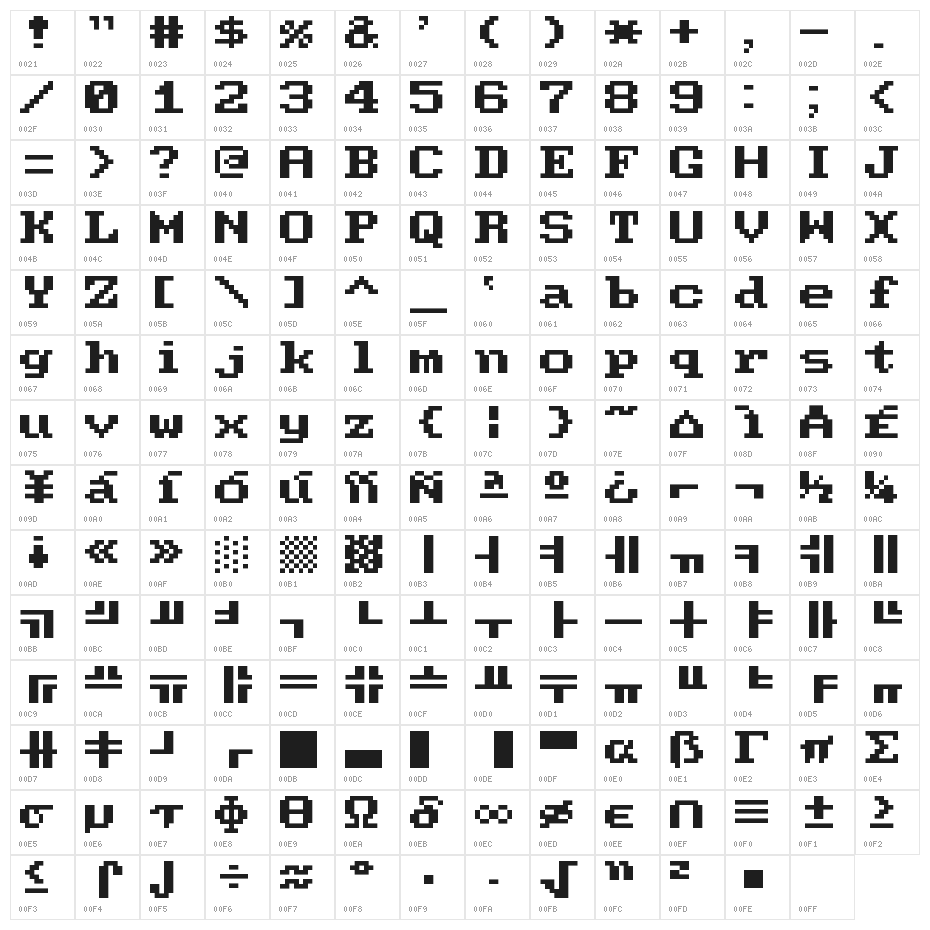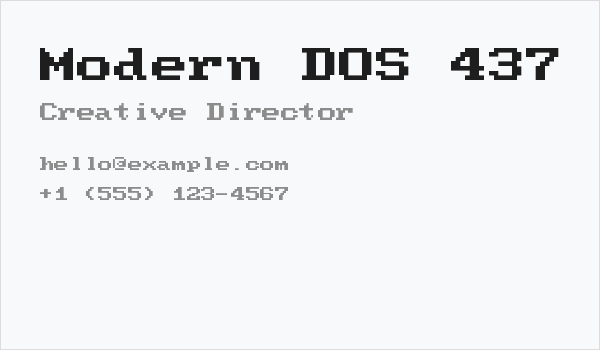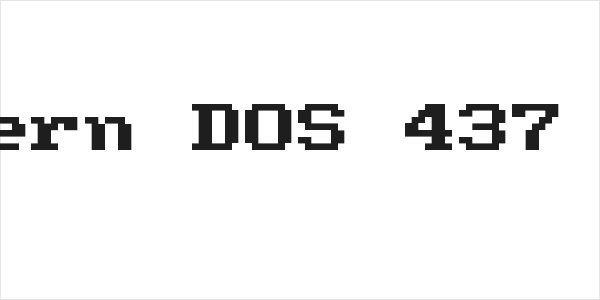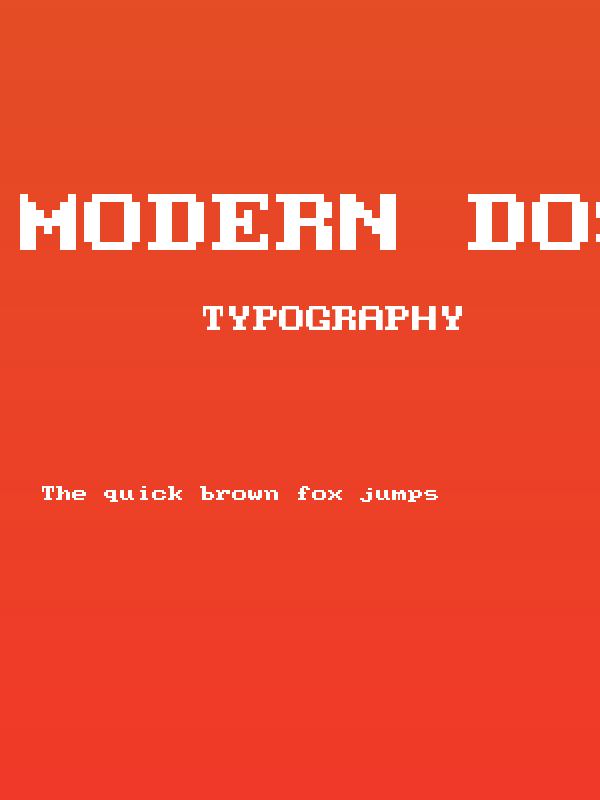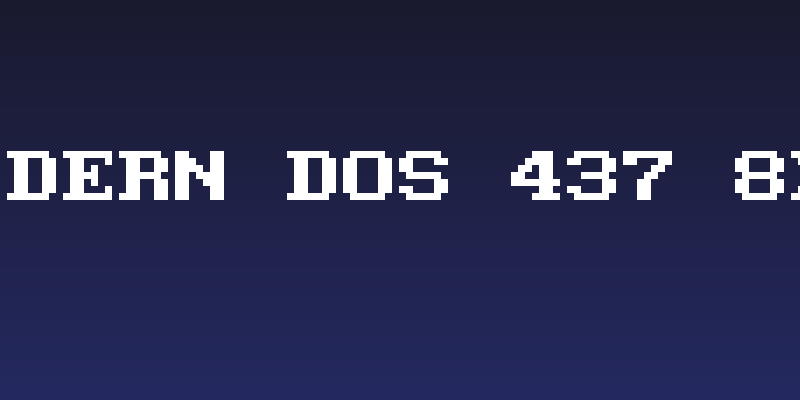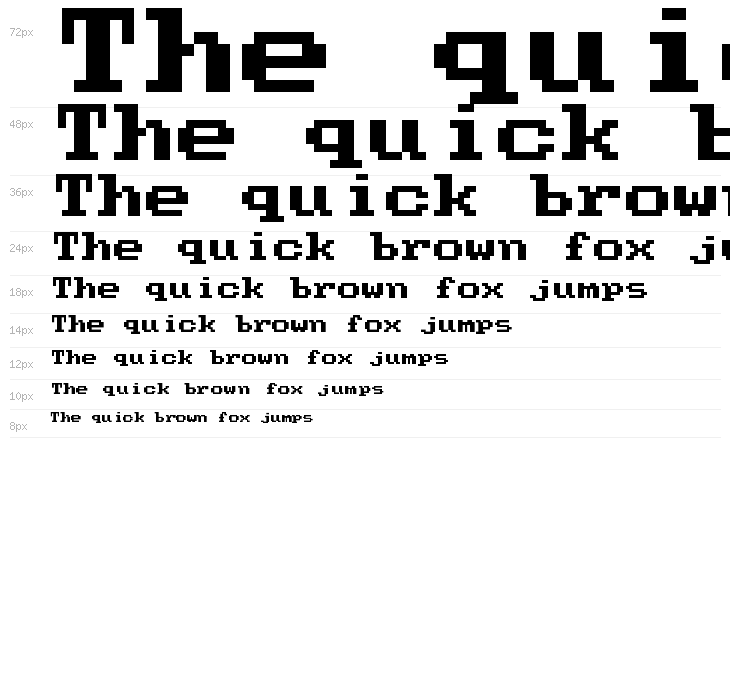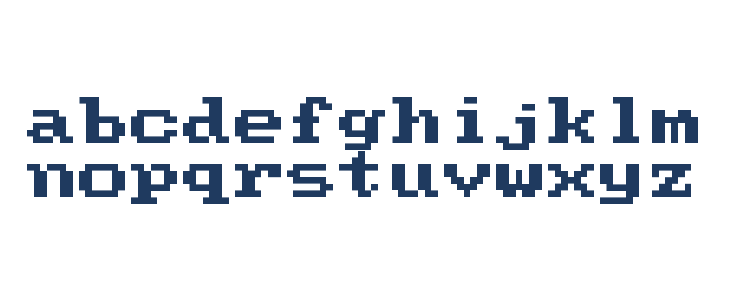
Modern DOS 437 8x8 Font
Modern DOS 437 8x8 Description
This font is a pixelated, monospaced typeface reminiscent of early computer displays and classic DOS interfaces. Each character is formed with a grid-like structure, giving it a distinctly retro and digital appearance. The uniformity in width across all characters ensures a consistent and orderly look, ideal for coding or emulating vintage computer aesthetics. The characters are bold and clear, making them easily legible even at smaller sizes. The design is straightforward, with no additional embellishments, focusing on functionality and clarity.
| Use Case | Coding, Digital displays, Retro designs |
| Proposed Projects | Ideal for retro-themed designs, coding environments, digital art projects, and any application requiring a vintage computer aesthetic. |